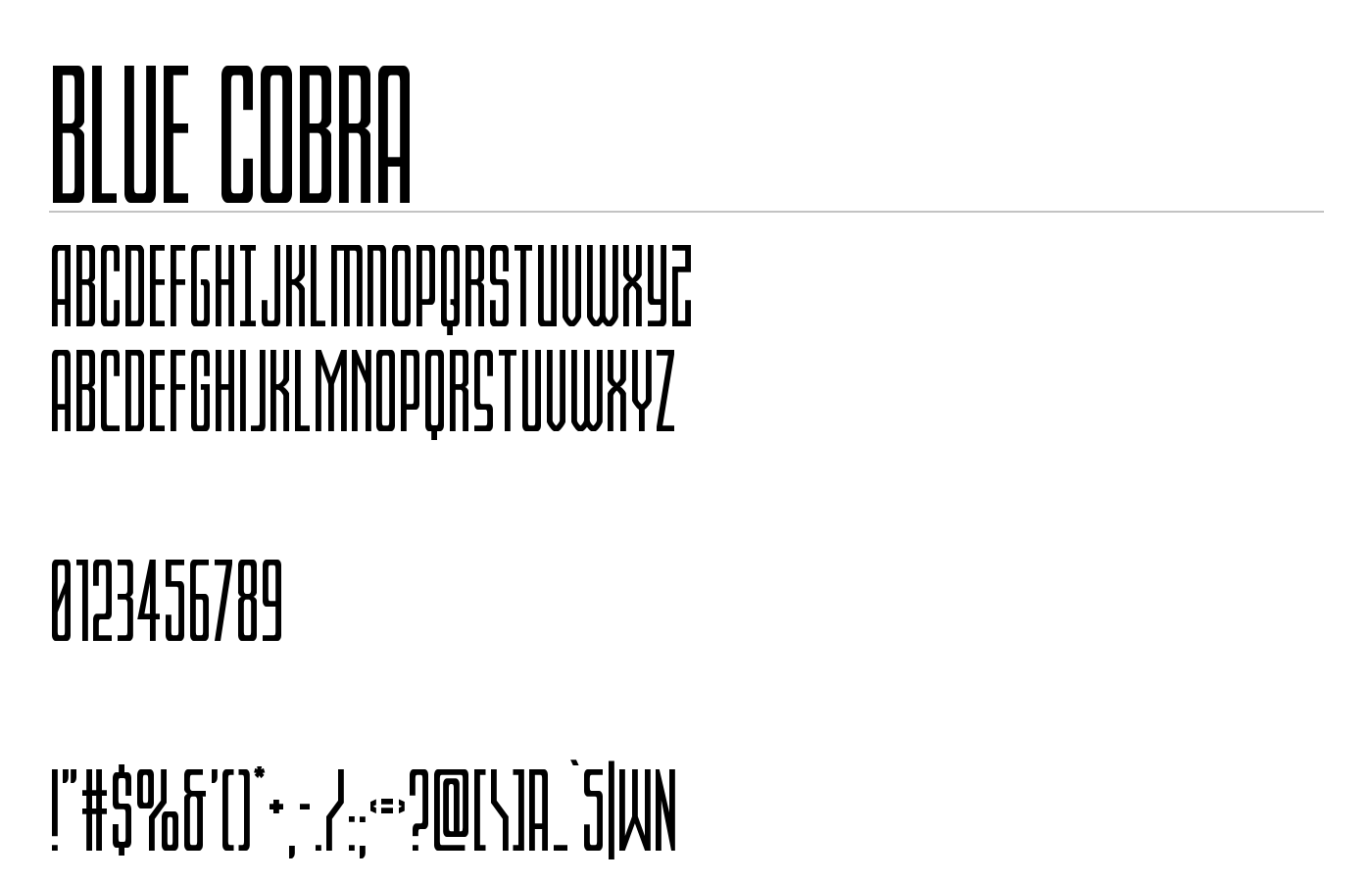
Blue Cobra is a tall, narrow sans serif font with clean, geometric lines and a modern, condensed style that creates a striking, compressed look. Its uniform stroke weight and sharp edges give it a bold yet sleek personality, making it ideal for attention-grabbing headlines, logos, and display use where space is limited but impact is essential. This font works well for contemporary branding and editorial designs that seek a minimalist and stylish edge.
Blue Cobra Font
About Blue Cobra Font